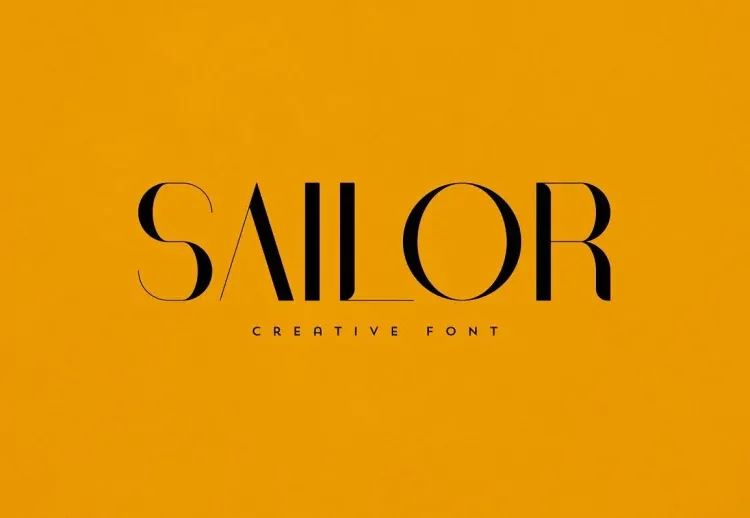
Sailor Font
Sailor is a beautifully crafted display typeface designed to elevate any design project. With its graceful lines and eye-catching form, Sailor makes a powerful statement, whether used for headlines, logos, or simple text. Its elegant and flexible design ensures it can seamlessly fit into a variety of creative projects.
Perfect for home-ware branding, product packaging, magazine headers, or even as an elegant text overlay on any background image, Sailor offers an impressive level of versatility. Its timeless style ensures it will add sophistication and flair to your designs, making them stand out effortlessly.
Whether you’re designing a logo, crafting a headline, or looking for that perfect font to enhance your overall aesthetic, Sailor is the ideal choice. Its elegant form will infuse your projects with beauty and style.